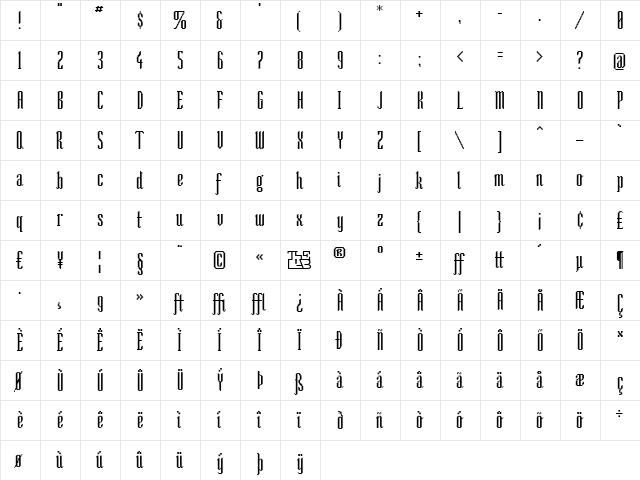
So Narrow Regular Font Preview
So Narrow Regular
So Narrow Regular Font Details
| Designer | Apostrophe |
Design Context for So Narrow Typeface
So Narrow is a composed and adaptable typeface that performs quietly and consistently across a wide range of design contexts. The condensed width makes it efficient for tight spaces without sacrificing legibility.